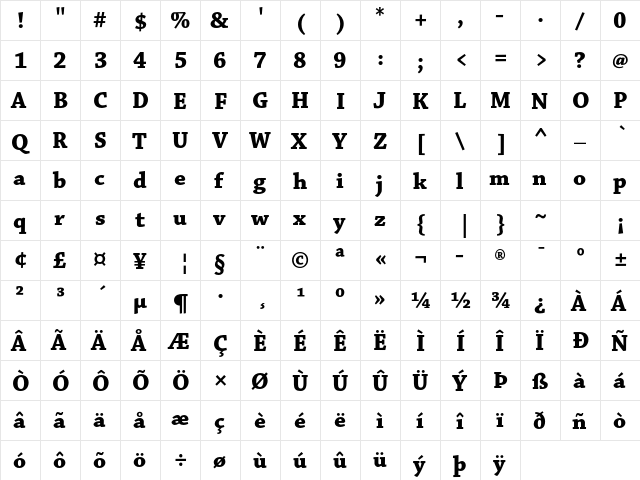
Chaparral Pro Bold Font Preview
Chaparral Pro Bold
Chaparral Pro Bold Font Details
| Designer | Carol Twombly |
Design Context for Chaparral Pro Typeface
Chaparral Pro is a composed and adaptable typeface that performs quietly and consistently across a wide range of design contexts. The heavy weight commands attention and anchors typographic hierarchies.